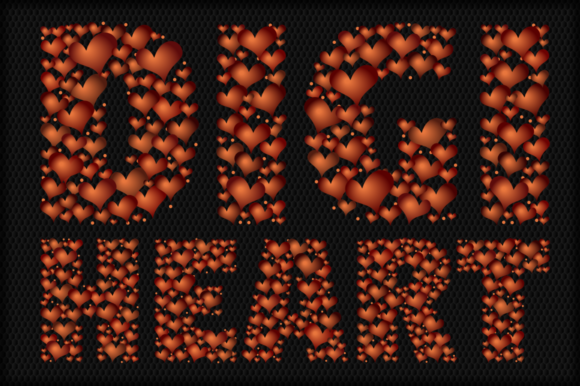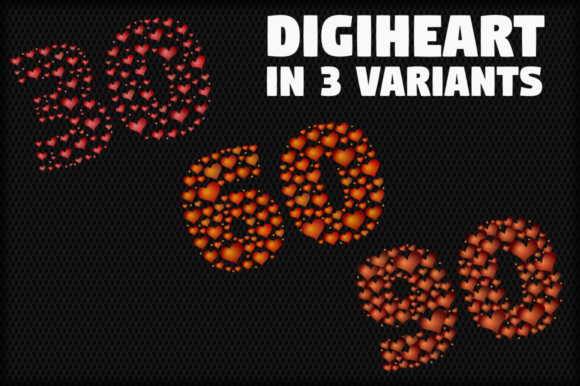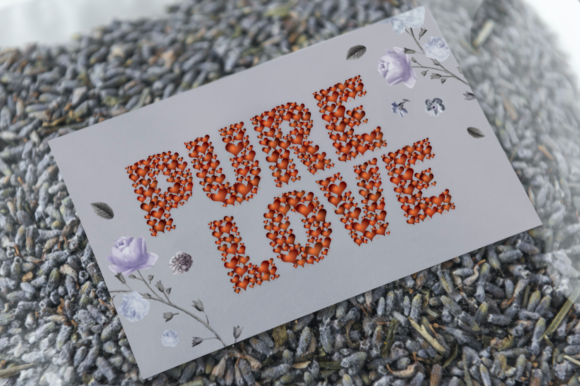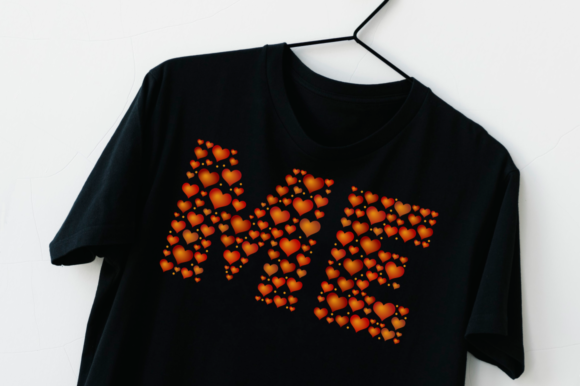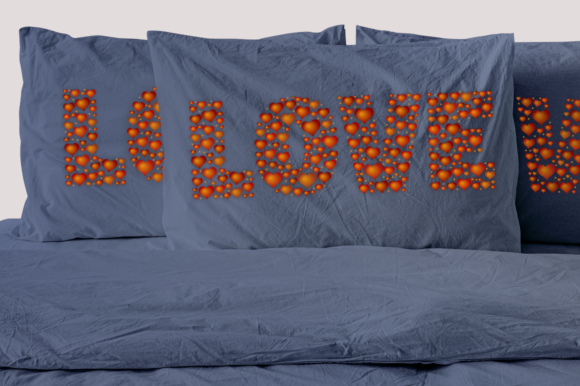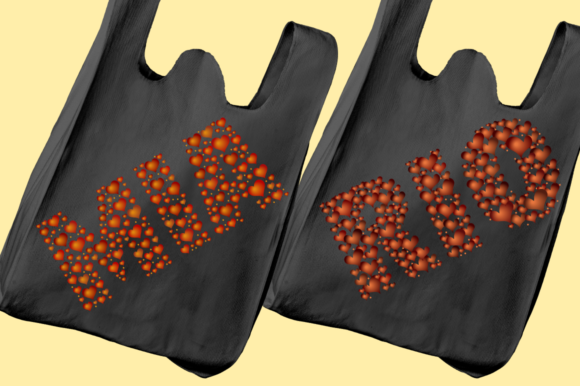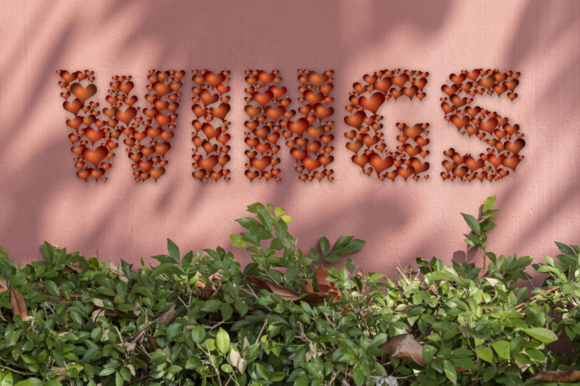
Digiheart Font
Digiheart is an incredibly unique color font that takes your projects to the next level. With its three distinct styles, this font offers incredible versatility for your designs.
Each style of Digiheart brings its own charm and character, allowing you to explore different creative possibilities. Whether you’re looking for a playful and whimsical vibe, a futuristic and sleek aesthetic, or a bold and vibrant statement, Digiheart has got you covered.
With its vibrant colors and intricate details, Digiheart stands out and adds a touch of excitement to your typography. Whether you’re designing logos, posters, or digital artwork, this font is sure to leave a lasting impression.
Unleash your creativity and let Digiheart elevate your projects. With its unique styles and stunning color variations, it brings a whole new dimension to your designs. Get ready to stand out and make a statement with the incredible versatility of Digiheart.